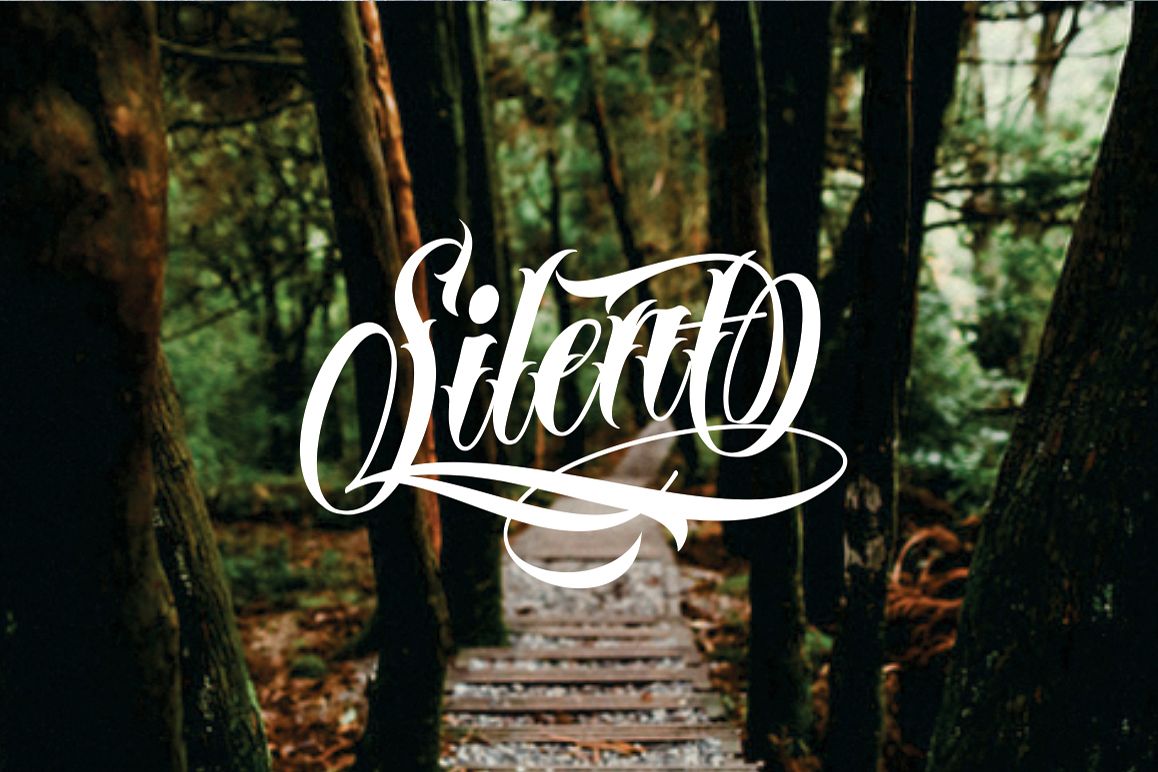
MR Brown Scirpts
MrBrown-VMF
font script with seven stylistic form, and swash variant , very easy to change alternate character and modified, and support multi language